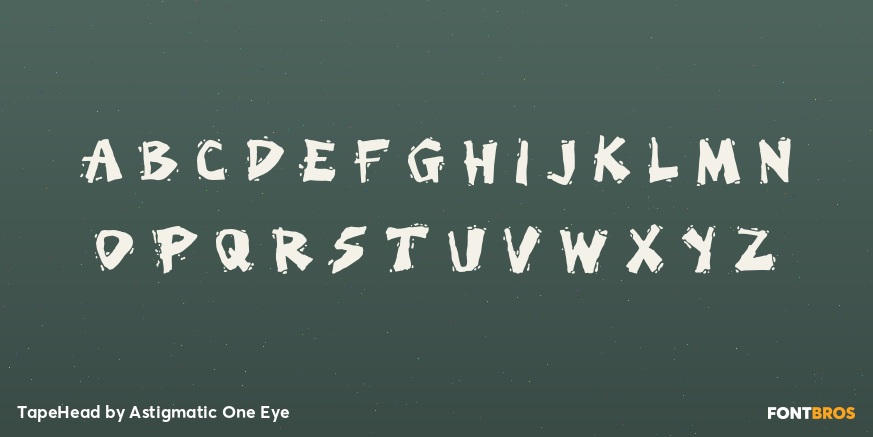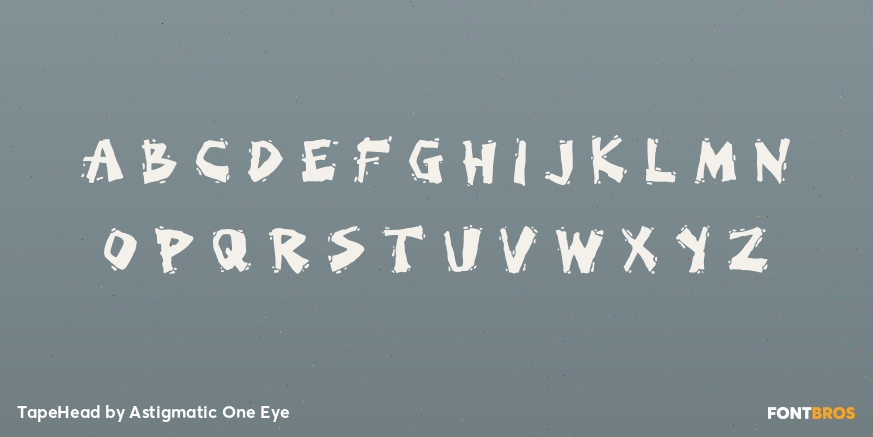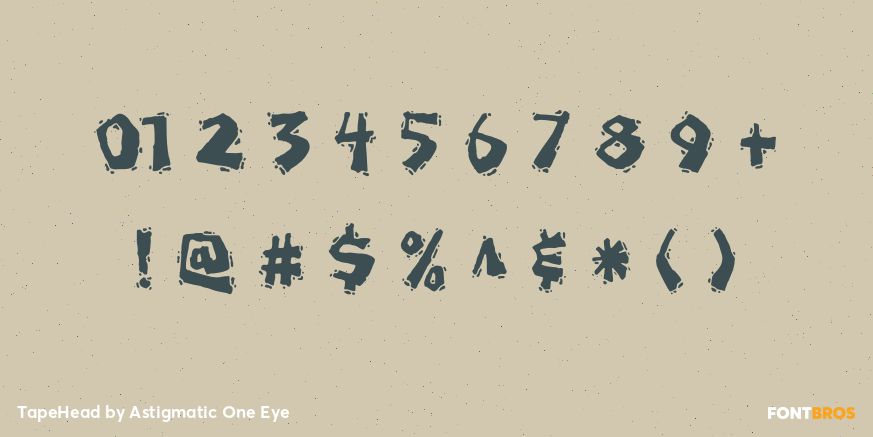
TapeHead
Font Family by Astigmatic One Eye
TapeHead is inspired by logotype the movie "TapeHeads" by Michael Nesmith, which embodied all the funky madness and mayhem the Video Aces had to go through to fight Mo Fuzz and ressurect the careers of their idols, the Swanky Modes! If you don't know what I am talking about, go rent the movie. If you are looking for some funk for your designs, buy the typeface. It's like fate, waiting for you to put your fingers to the test!